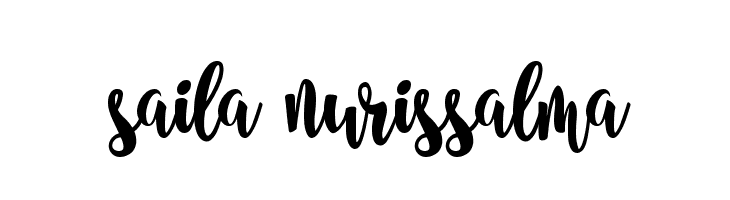
A bold, geometric font with a futuristic and mechanical style.
A bold, brush-style font with dynamic and expressive strokes.
A fluid, handwritten-style font with elegant, connected letters.
A bold, brush-style font with a lively and artistic flair.
A decorative, cursive font with artistic, hand-drawn qualities.
A bold, decorative font with vintage, ornate serifs and flourishes.
An elegant, cursive font with sweeping curves and stylish flourishes.
A bold, hand-crafted font with a rugged and angular design.
A lively and expressive handwritten font with dynamic strokes.
An elegant, flowing script font with decorative flourishes.
A dynamic, hand-drawn font with an artistic and organic feel.
A bold, angular font with a modern and dynamic style.
A playful, bubbly font perfect for children's projects.
A lively and dynamic script font with flowing, cursive letterforms.
A pixelated, retro-style font ideal for digital and nostalgic designs.
A bold, playful font with thick, rounded strokes and a whimsical appearance.
A futuristic, mechanical font with intricate circuit-like details and a bold, industrial style.
A flowing, cursive script font with elegant, connected characters and dynamic stroke variations.
A bold, striped, italic font with a futuristic and dynamic style.
A bold, expressive handwritten font with dynamic strokes.
A bold, italicized font with a modern, dynamic style.
A bold, playful handwritten font with rounded, consistent strokes.
Tall, narrow serif font with curled terminals and a whimsical style.
A lively, handwritten font with bold, dynamic strokes.
A playful, decorative font with characters enclosed in egg-shaped ovals.
A bold, decorative font with elegant swirls and flourishes.
An elegant, flowing script font with smooth, continuous strokes and a handwritten touch.
A playful, handwritten font with fluid, connected letterforms and a casual style.
An elegant, flowing script font with intricate swirls and loops.
A bold, geometric font with a futuristic, angular design.
A graceful and flowing script font with elegant, interconnected characters.
An elegant, flowing script font with intricate swashes.
An elegant script font with flowing, interconnected letters and intricate swashes.
A bold, playful font with rounded strokes and a whimsical flair.
A bold, angular Blackletter font with intricate detailing and a medieval flair.